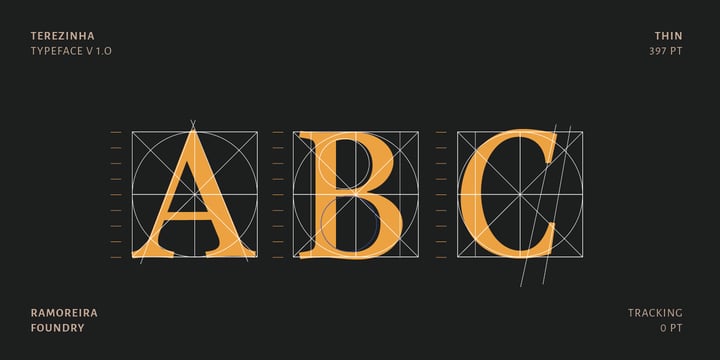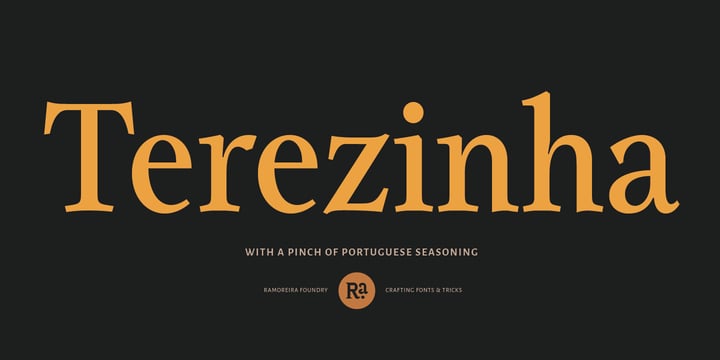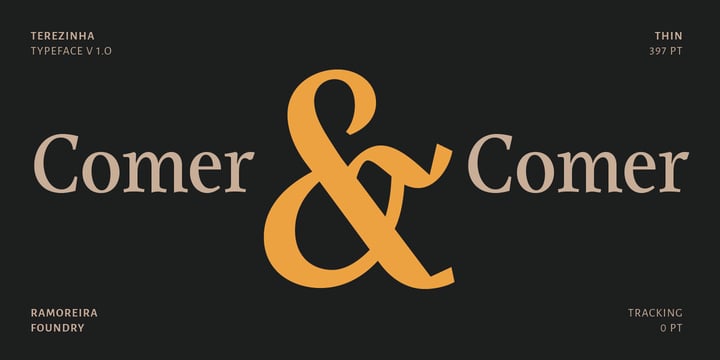
Diogo Ramos Moreira
He is a type designer, graphic designer, and illustrator from Brazil, currently living in Italy for the past three years. Not only that, but he specialized in typographic design during his Master’s degree at UBA in Argentina.
His fonts reflect his skills, combining illustration and calligraphy. If you’re a fan of swashes and dingbats, his typefaces are sure to captivate you.